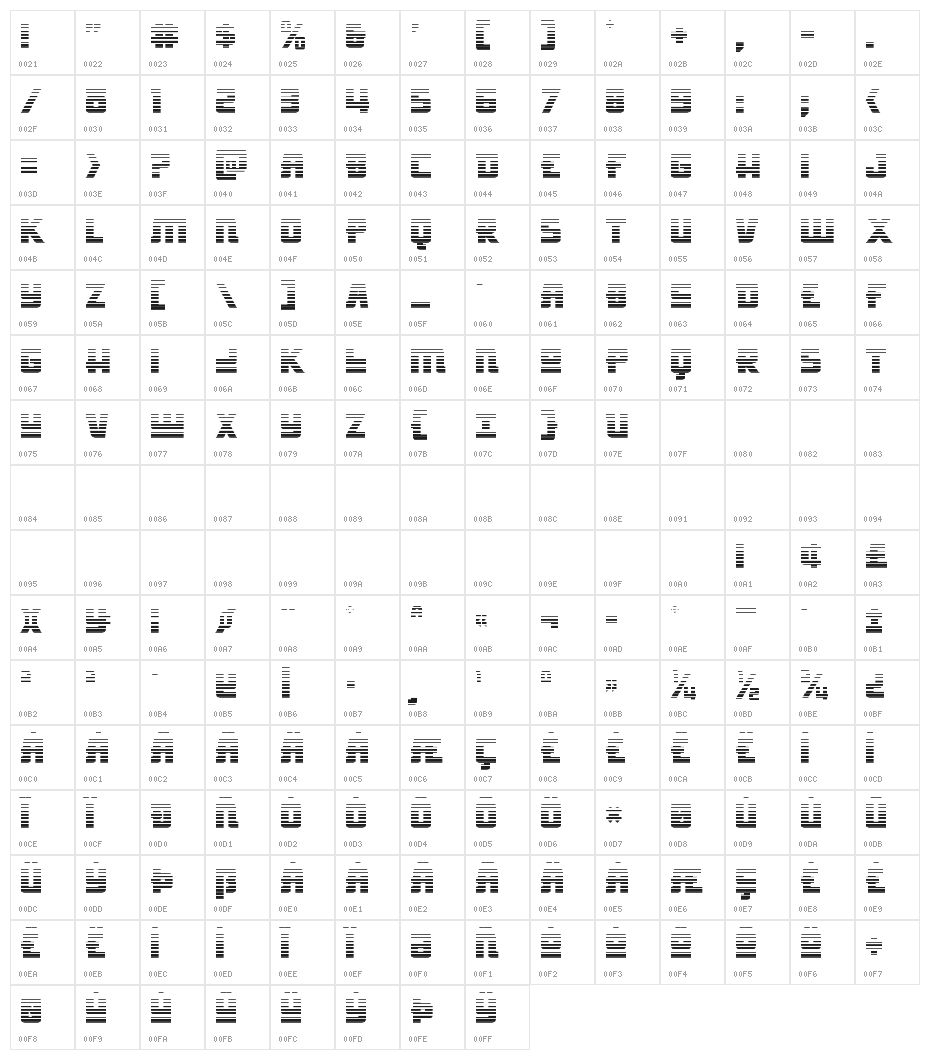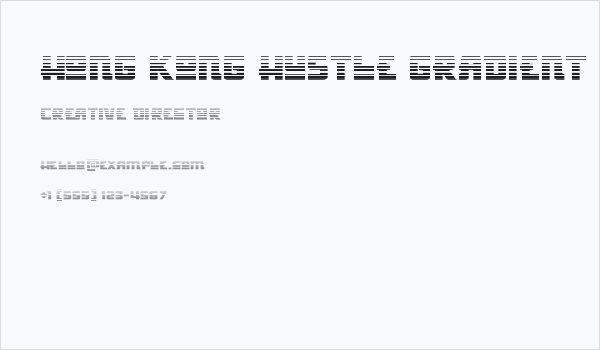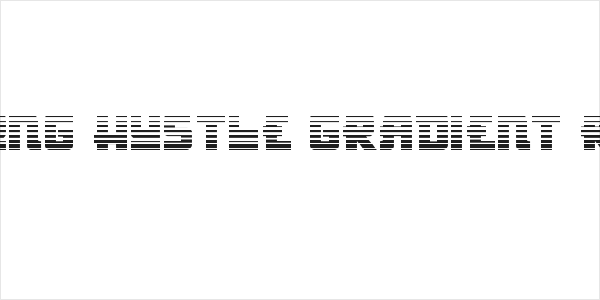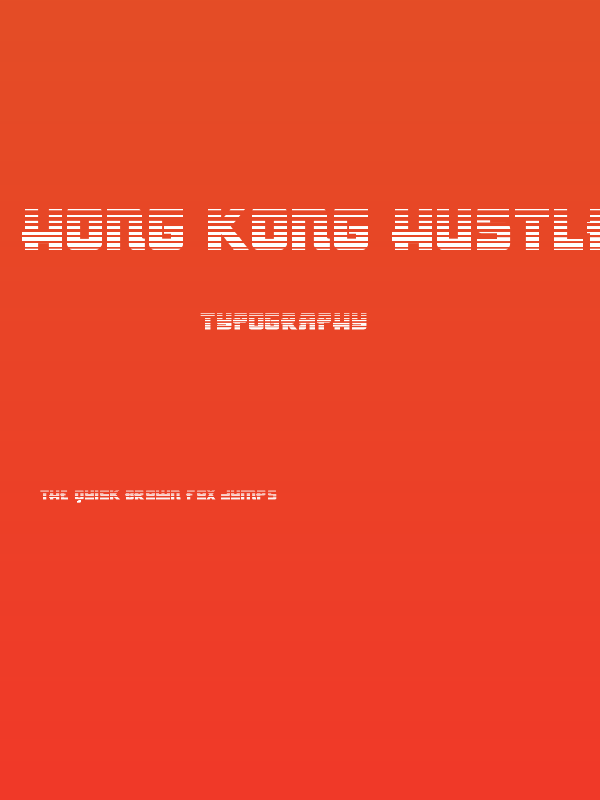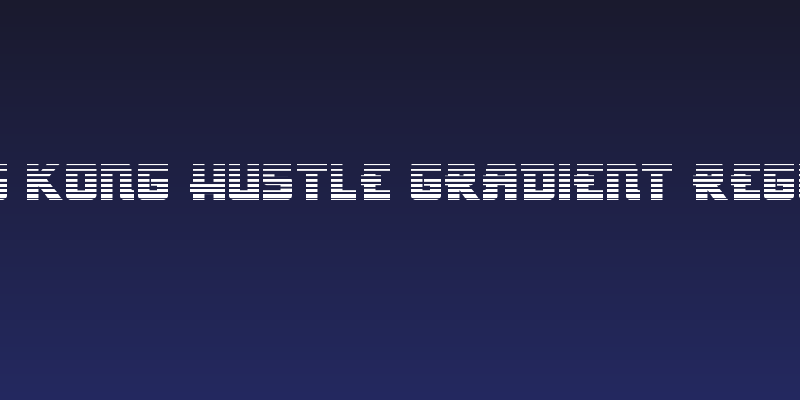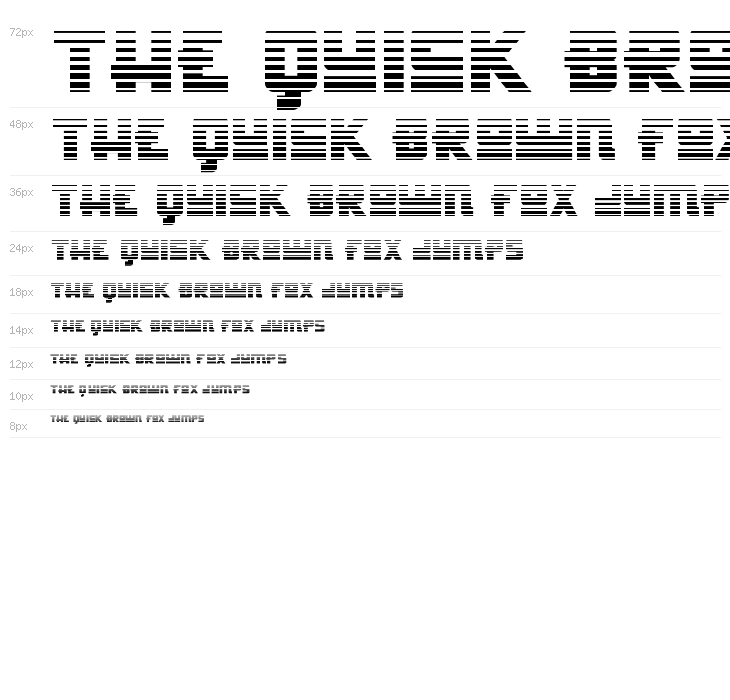
Hong Kong Hustle Gradient Regular Font
Hong Kong Hustle Gradient Regular Description
This font features a bold, futuristic design with a unique gradient effect created by horizontal lines cutting through each character. The letters and numbers are constructed with a blocky, geometric style, giving them a strong and impactful appearance. The use of horizontal stripes adds a sense of movement and modernity, making it stand out in any design. The characters are evenly spaced, ensuring readability while maintaining a distinct visual style. This font is ideal for projects that require a modern, tech-inspired aesthetic.
| Proposed Projects | Ideal for tech branding, futuristic posters, video game titles, and sci-fi themed designs. |